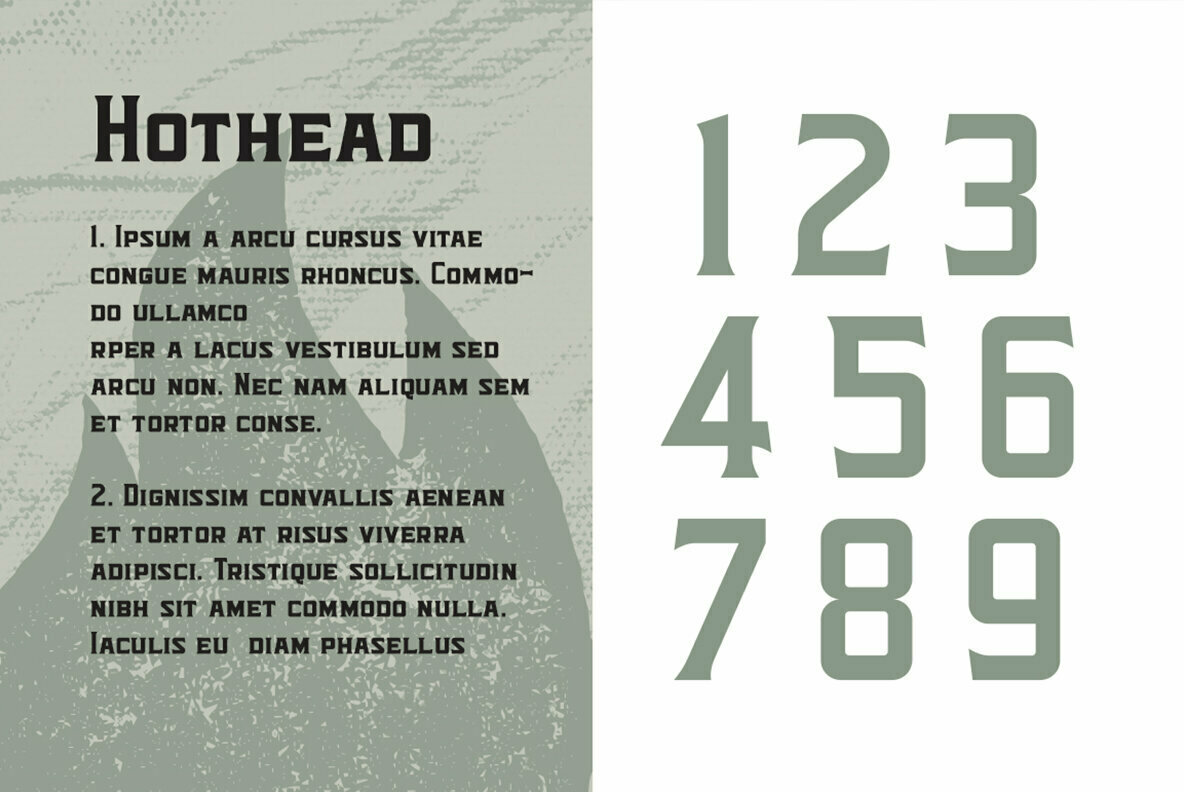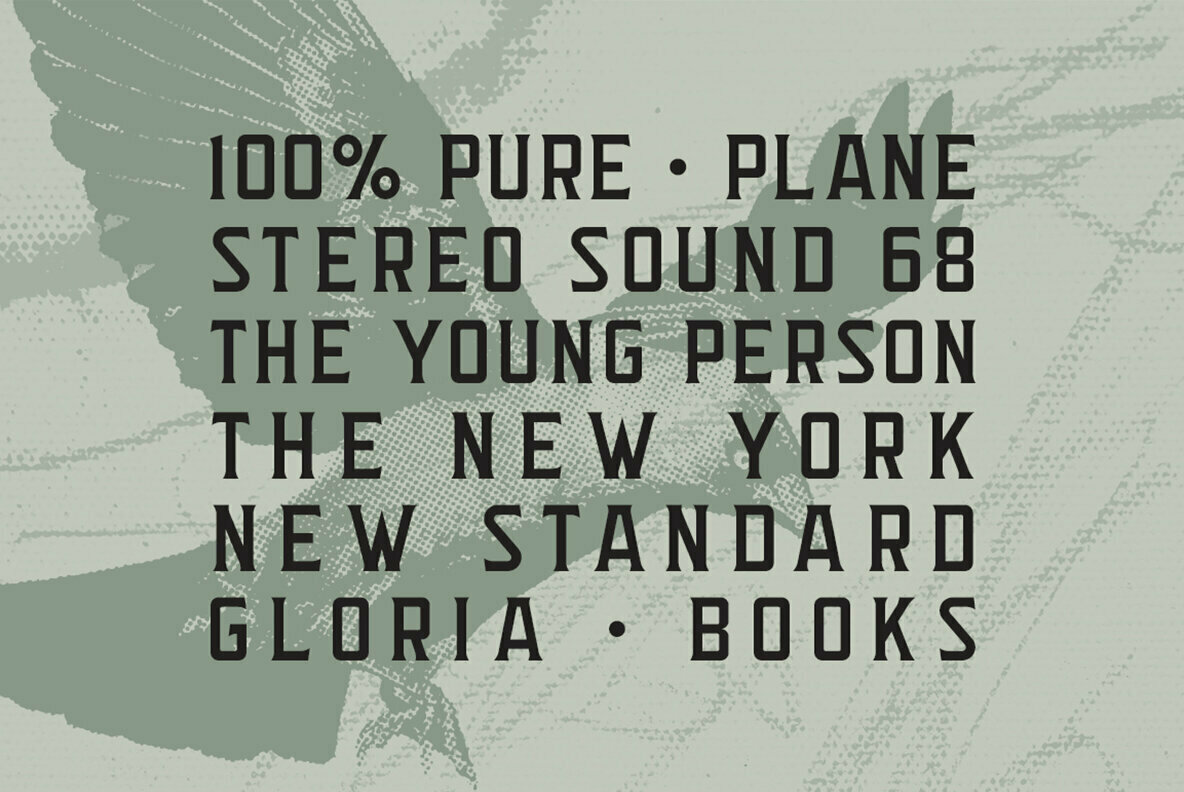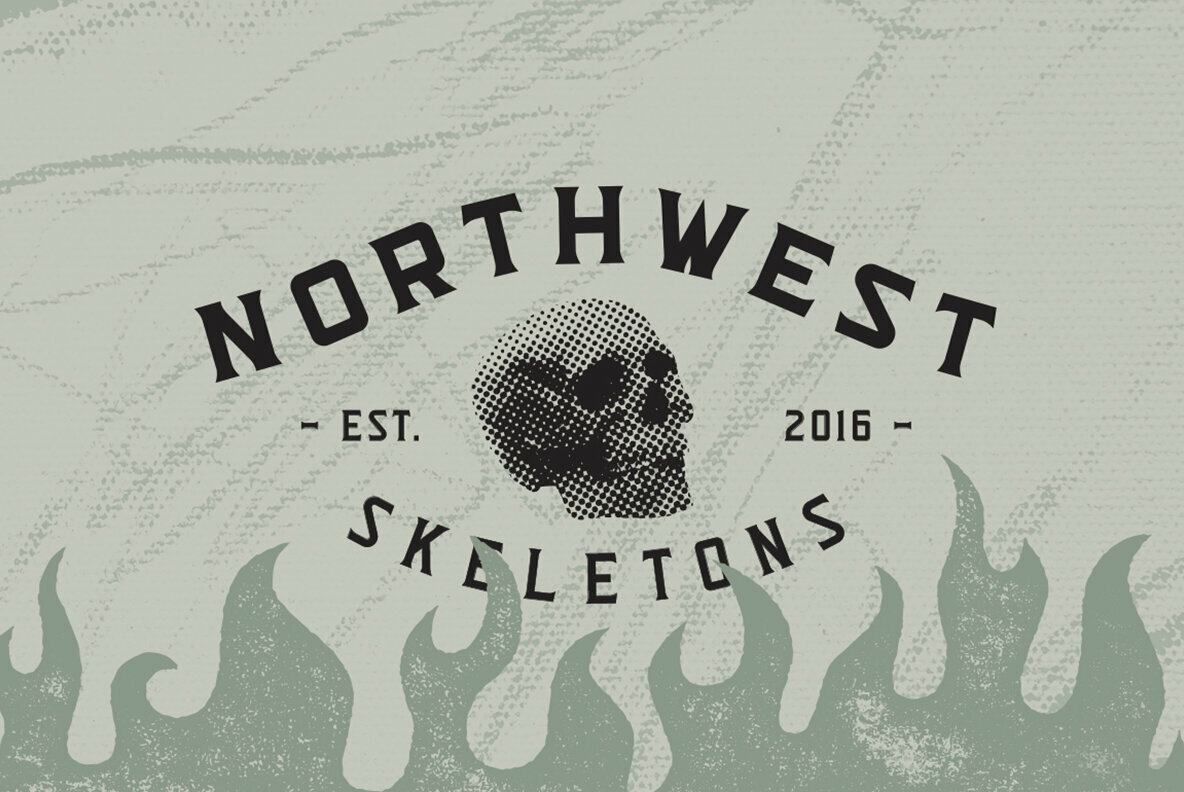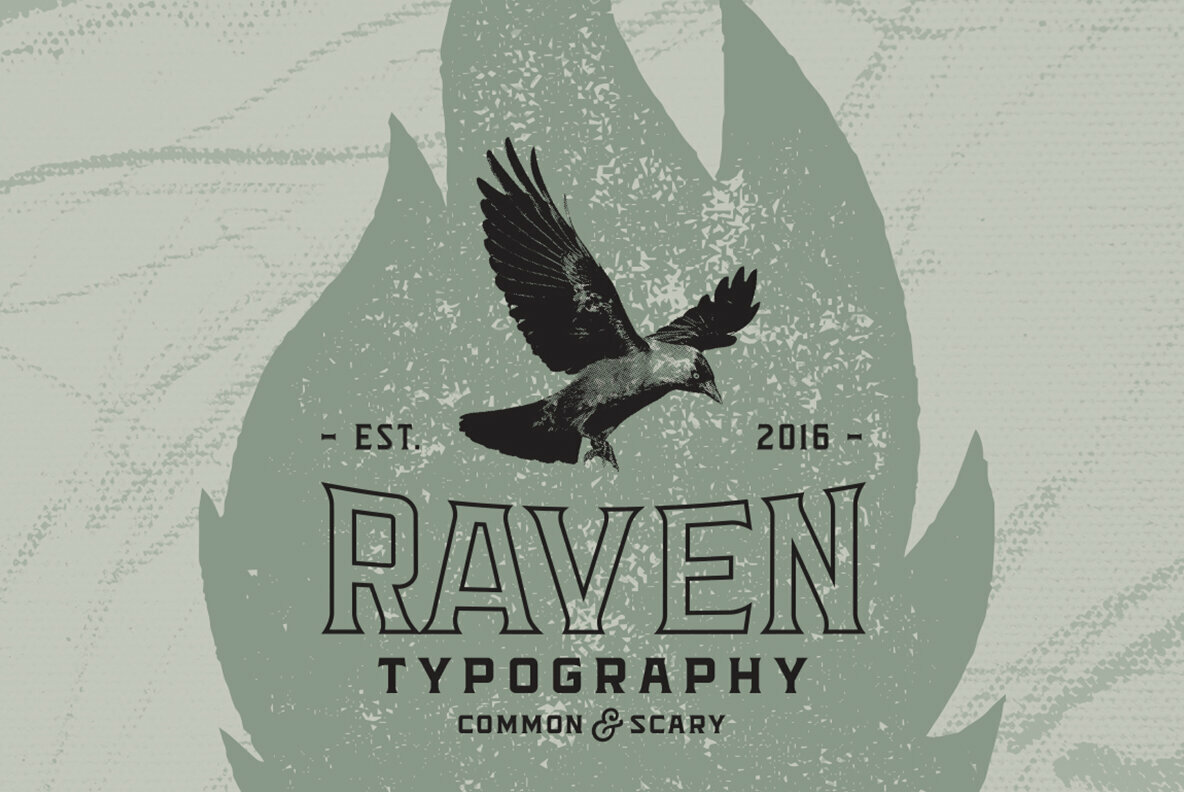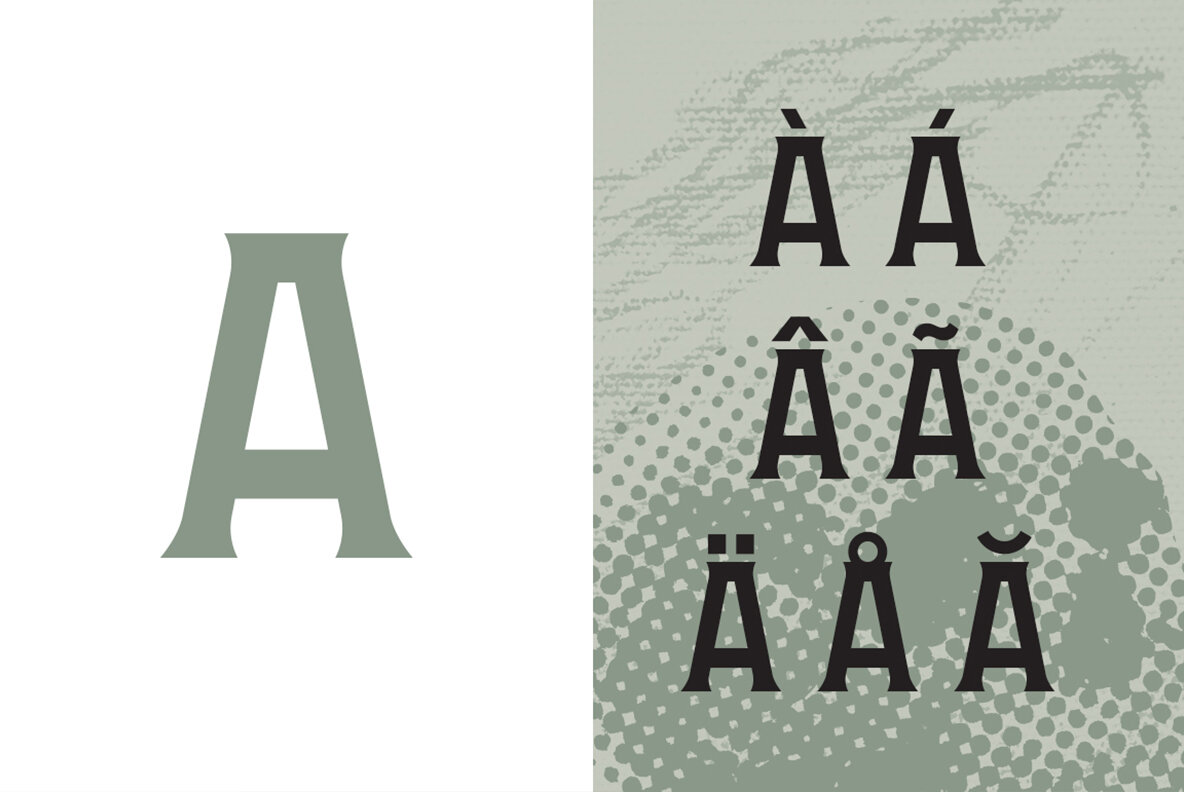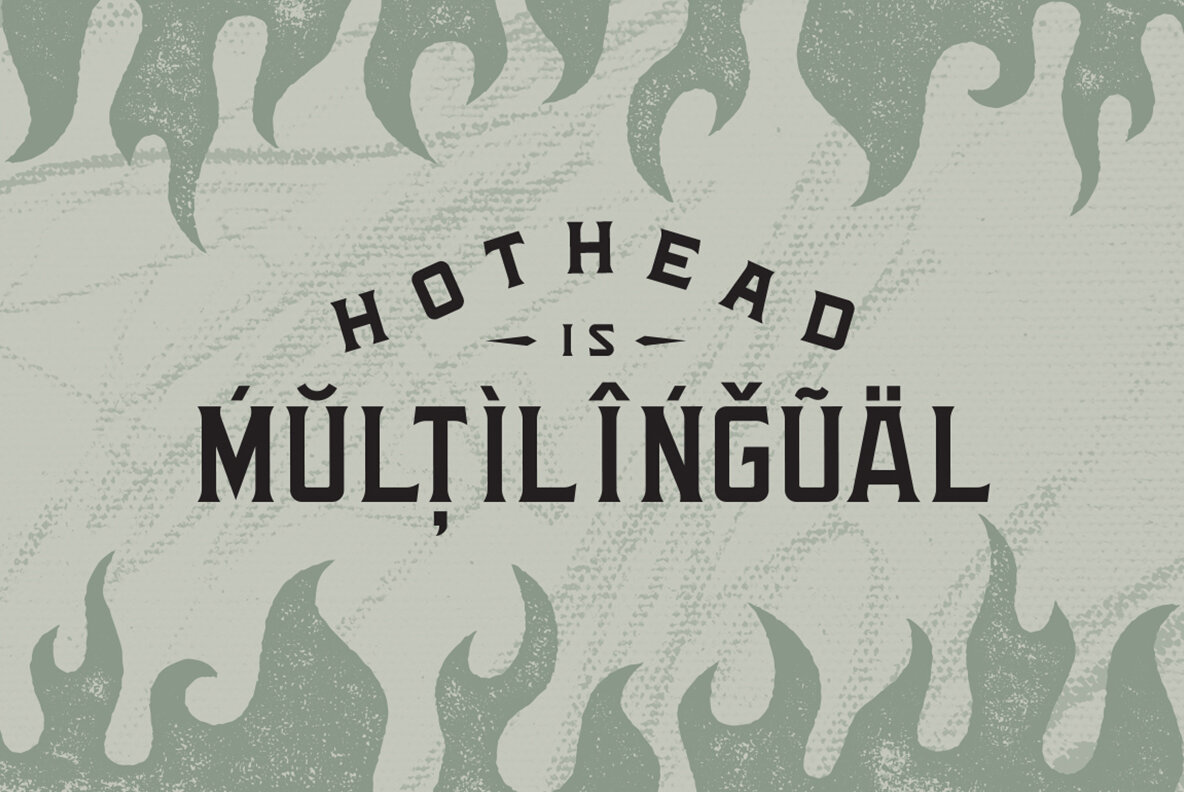
Hothead Typeface Font
HOTHEAD, a upper and lower uppercase serif font inspired by the western American culture. This font is traditional yet modern, still having a strong, western vintage touch. HOTHEAD has 258 glyphs, extensive latin script language support, characters set A-Z , numerals and punctuation, all carefully designed.
This font allows versatile design options, being the perfect tool in creating bold logos, headers, posters and stand out packaging designs.
- Upper and lowercase font